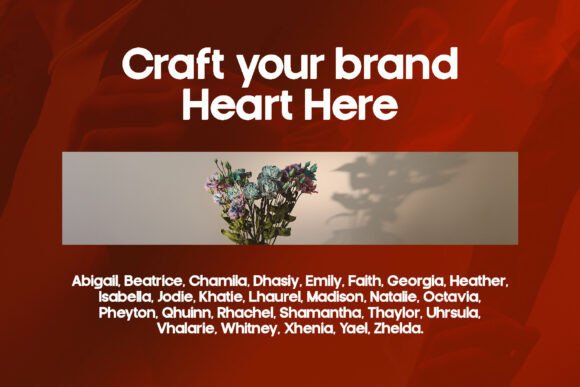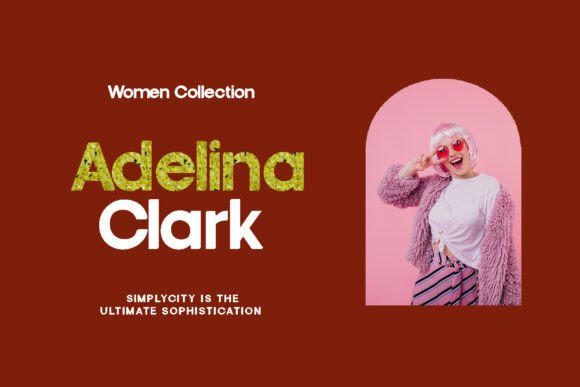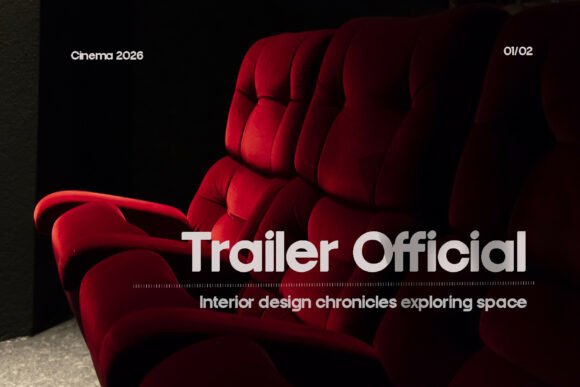
Introduction to Modlore Font
Remember the thrill of staring at a blank canvas, eager to bring a creative project to life? It’s a moment of pure possibility, where anything can happen. For designers, this feeling is what drives us to push the boundaries of innovation and style. But sometimes, it’s the perfect font that can make all the difference. Enter the Modlore Font, a game-changing sans-serif typeface that exudes confidence and sophistication.
With its heavy-hitting, ultra-modern design, the Modlore Font is a powerhouse for bold headlines and minimalist branding. Its compact letterspacing and thick, geometric strokes give it an industrial strength that’s perfect for sports apparel and luxury street-wear. And with its unique, slightly squared-off inner counter on the “o”, it adds a touch of high-fashion elegance that’s hard to resist. Whether you’re designing a sleek tech website or a powerful magazine cover, the Modlore Font is a valuable resource that’s sure to elevate your creative endeavors.
Key Features of Modlore Font
- High-quality, professional font suitable for creative projects, including graphic design, digital art, and publishing.
- Comes in multiple weights and styles, providing flexibility for various design applications.
- Perfect for designers seeking a unique, modern aesthetic for their creative projects.
Honest Review: Modlore Font
I recently had the chance to experiment with the Modlore Font, and I must say it’s been a pleasant surprise. This free download is a fantastic design resource for any creative project that requires a modern and sleek aesthetic.
- What works well: ✨ The Modlore Font is incredibly versatile and can be used in a variety of contexts, from digital design to print media. Its clean and minimalist design makes it perfect for creating a professional and high-quality visual identity.
- What works well: ✨ The font also comes with a transparent background option, which allows for seamless integration with any background image or color.
Overall, I’m impressed with the Modlore Font and would definitely recommend it to designers and creatives looking for a high-quality, free design resource. Its modern design and versatility make it a great addition to any creative project.
Tips for Getting the Most Out of Modlore Font
To get the most out of Modlore Font, use it on a transparent background to create a seamless design. You can also experiment with different font sizes and styles to add visual interest to your creative project.
Modlore Font is a versatile design resource that can be used in a variety of projects, including logos, brochures, and social media graphics. It’s also a great choice for creating free download templates and design assets.